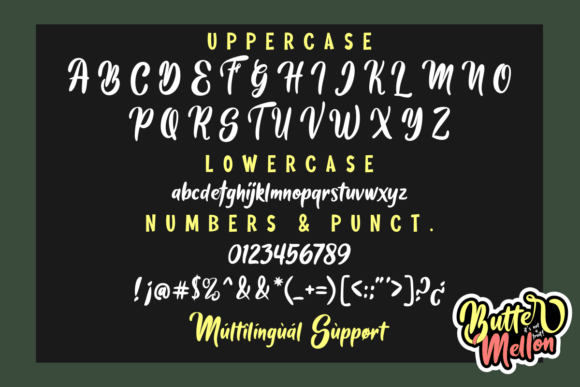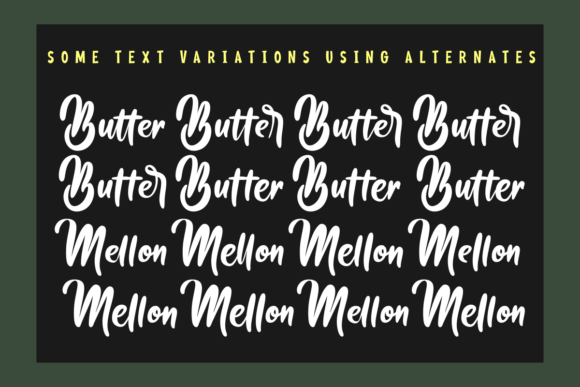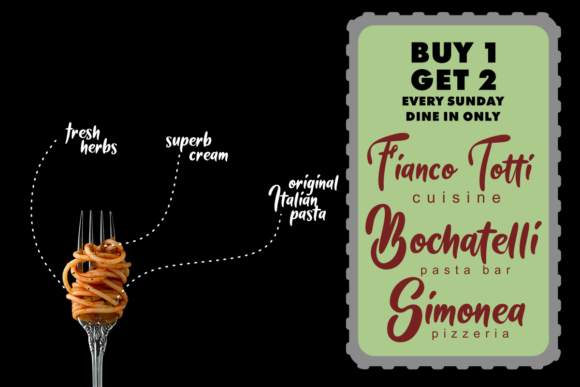
Introduction to Butter Mellon Font
Have you ever found yourself staring at a blank canvas, a blank page, or a blank screen, desperate for the perfect font to bring your creative project to life? We’ve all been there, and it’s in those moments that we discover the magic of a well-chosen font. For designers, the right font can be the difference between a good design and a great one.
That’s where the Butter Mellon Font comes in – a quirky and playful handwritten font that’s sure to add that special retro touch to any design idea you can think of. With its PUA encoded feature, you’ll have access to all the glyphs and swashes you need to take your design to the next level.
This high-quality design resource is not only free to download, but it’s also packed with gorgeous glyphs, stunning alternates, and smooth lines that will make your designs stand out from the crowd, even with a transparent background.
Key Features of Butter Mellon Font
- Unique, hand-drawn design suitable for creative projects requiring a touch of elegance.
- Perfect design resource for graphic designers, artists, and writers seeking a distinctive aesthetic.
- Supports a wide range of languages, making it a versatile design choice for global creative projects.
Honest Review: Butter Mellon Font
I recently had the chance to work with the Butter Mellon Font, and I must say, it’s a unique addition to my design resource library. ✨ The font’s quirky charm and playful feel make it perfect for creative projects that need a bit of whimsy.
- Unique, hand-drawn design
- High-quality design perfect for creative projects
However, there are a few limitations to keep in mind: ⚠️ The font may not be suitable for all design projects, particularly those requiring a more formal or professional tone. Additionally, some users may find the font’s quirks distracting, so it’s essential to use it judiciously.
Overall, I think the Butter Mellon Font is a great addition to any design library. While it may not be for everyone, it’s a high-quality design resource that can add a touch of personality to your creative projects.
The Butter Mellon Font is ideal for various design projects, including social media graphics, presentations, and branding materials. Its unique style and high-quality design make it a valuable resource for designers and creatives.